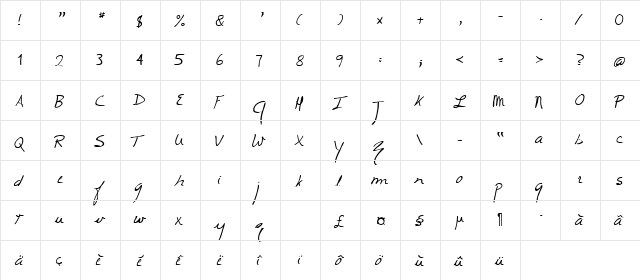
White horses are still in bed Normal
Design Context for White horses are still in bed Typeface
White horses are still in bed is a composed and adaptable typeface that performs quietly and consistently across a wide range of design contexts.